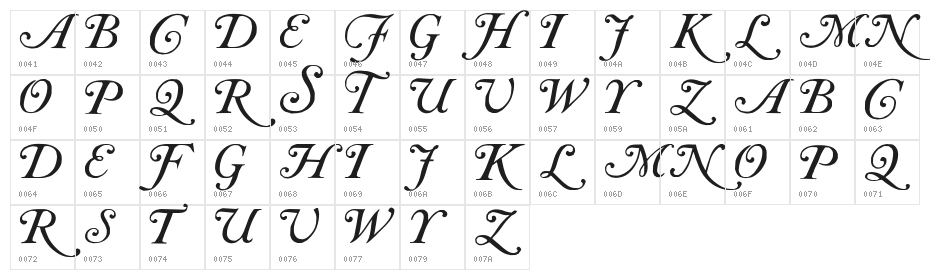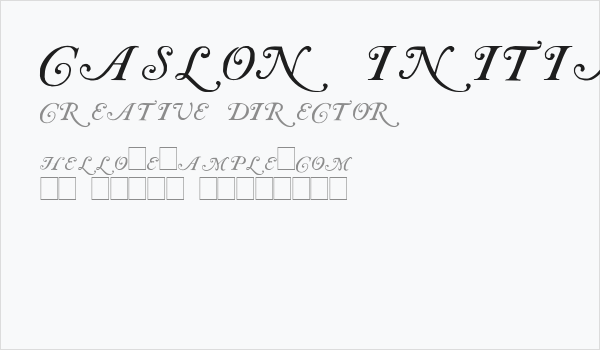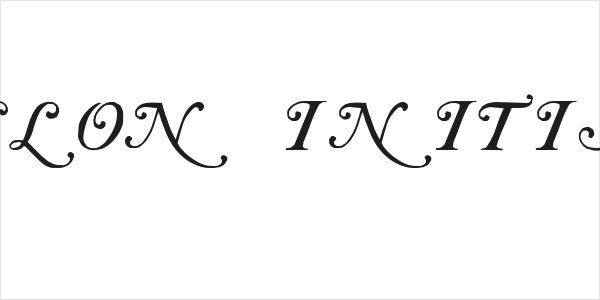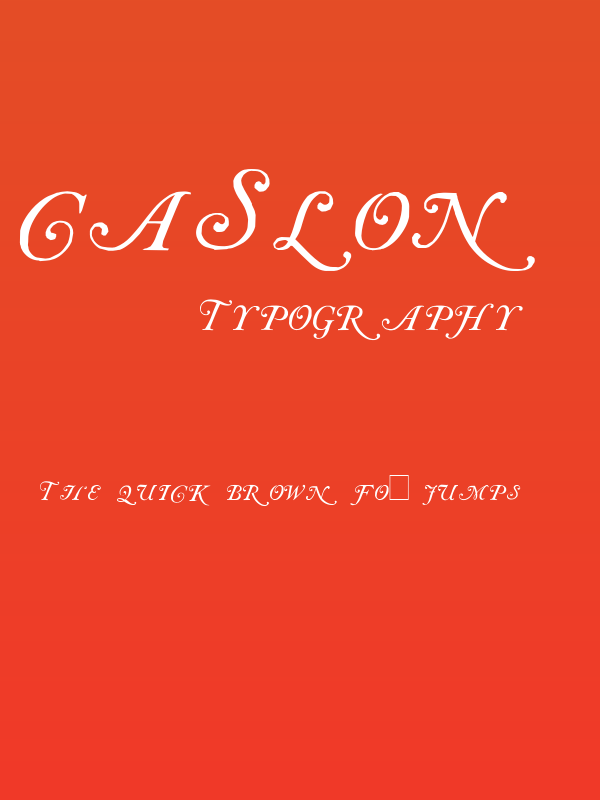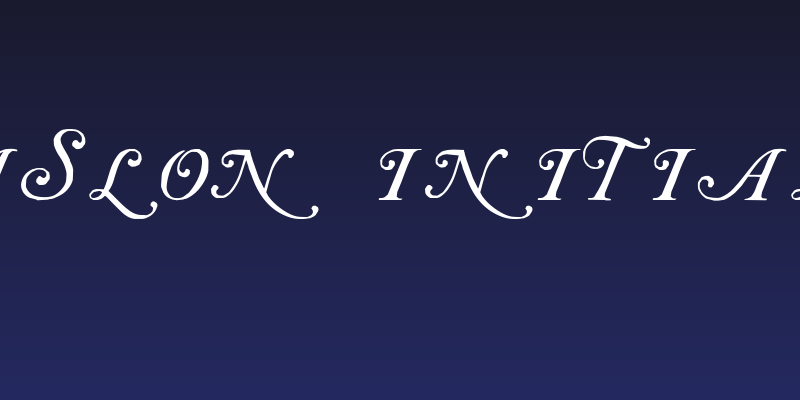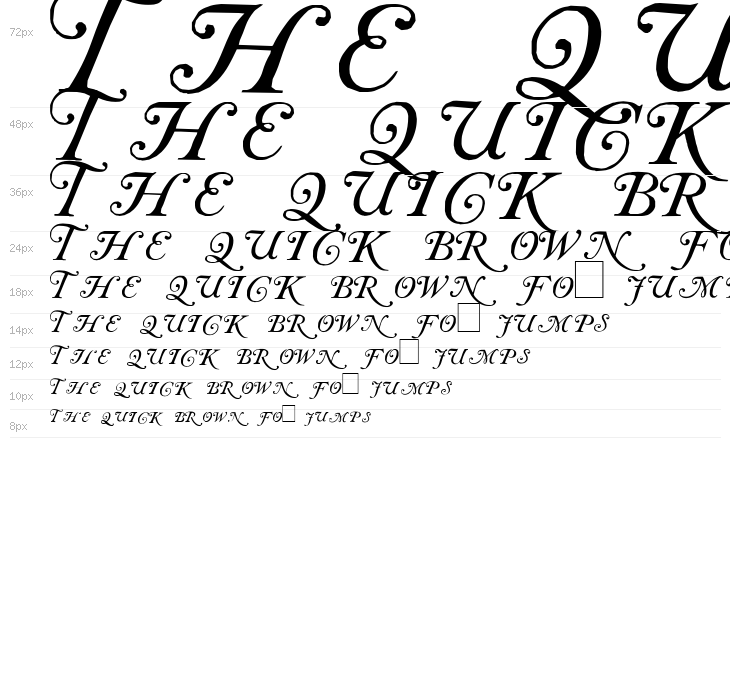
Caslon Initials Font
Caslon Initials Description
This font features elegant, flowing characters with a classic and sophisticated style. The letters are adorned with intricate swashes and flourishes, giving them a decorative and ornate appearance. The uppercase letters are particularly elaborate, with extended serifs and curved strokes that add a sense of movement and grace. The overall design is reminiscent of traditional calligraphy, making it suitable for formal and ceremonial contexts. The font's aesthetic is both timeless and refined, capturing the essence of historical typography with a modern twist.